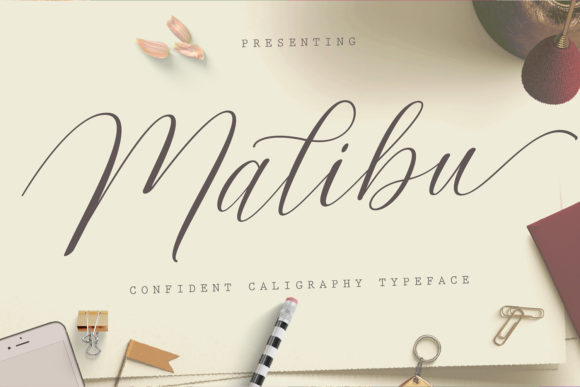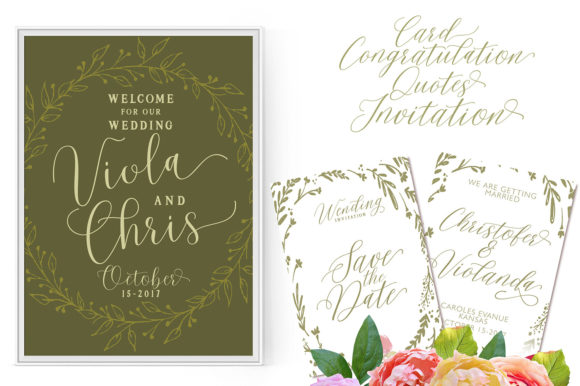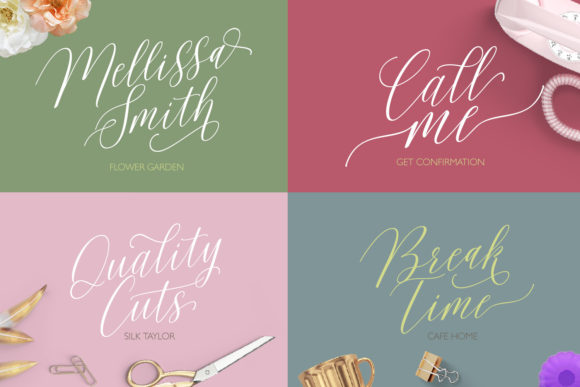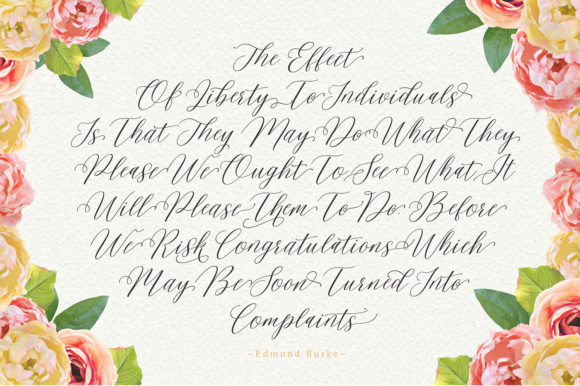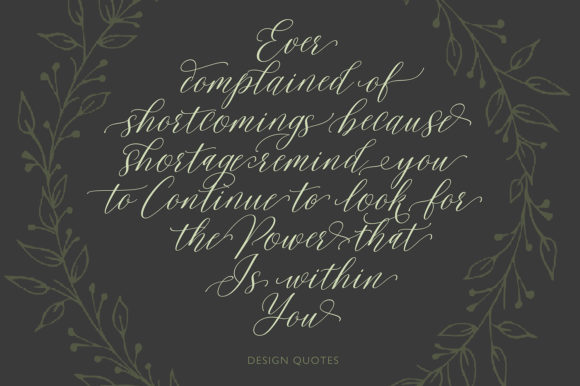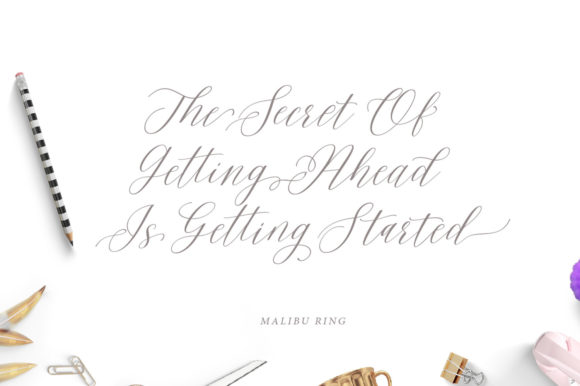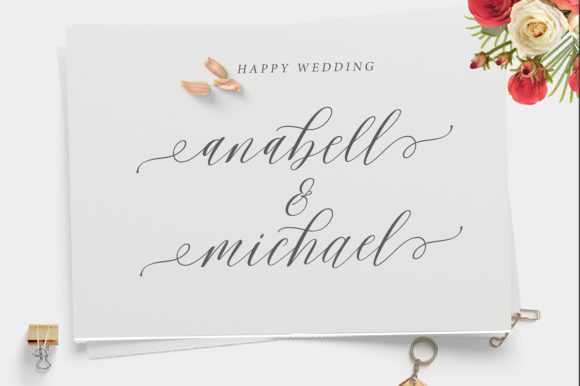
Malibu Script Font
About Malibu Script Font
Malibu is a splendid script font that beautifully combines classic calligraphy with a modern feel. This typeface is perfect for titles, signatures, logos, wedding invitations, t-shirts, letterhead, signage, labels, newsletters, posters, badges, etc.